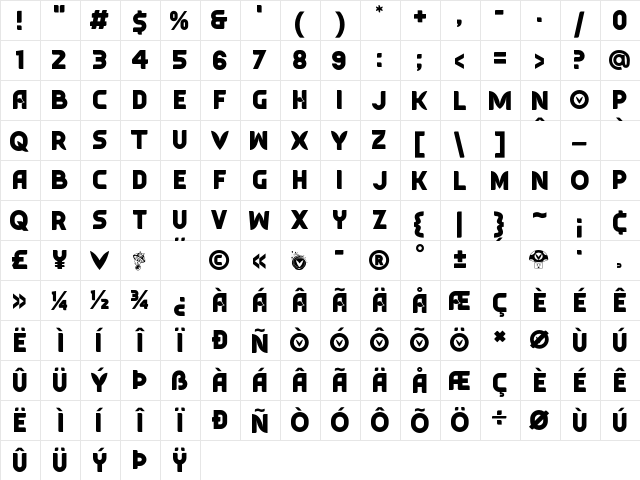
Typesauce Regular
Design Context for Typesauce Typeface
Typesauce offers clean, dependable letterforms without strong stylistic allegiance, making it a practical choice for designers who need flexibility.